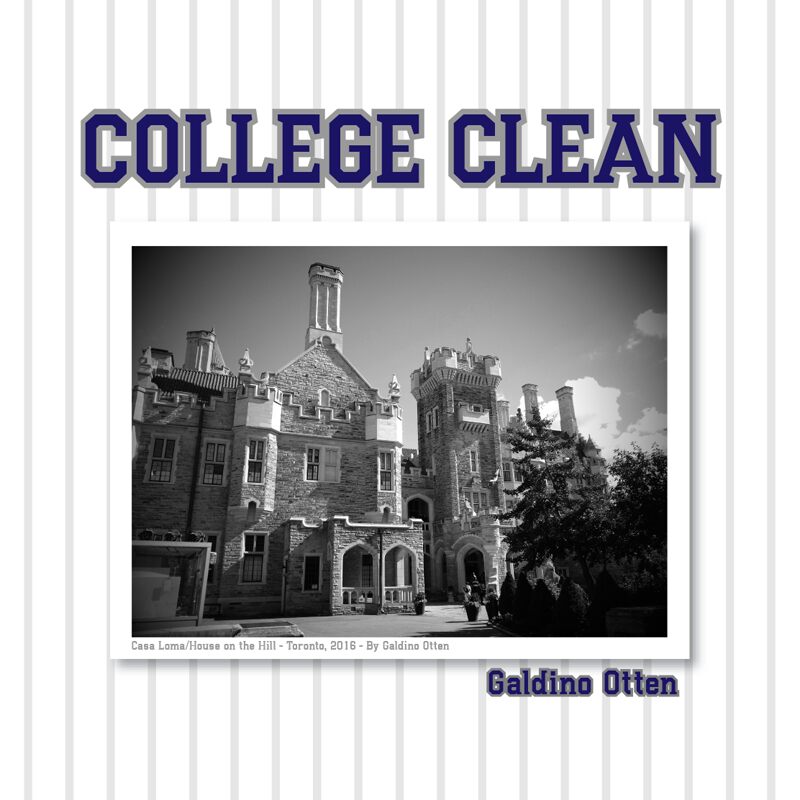
College Clean
College Clean, a distinct creation by Galdino Otten Fonts, embodies the essence of old school charm with a modern twist. This display font showcases semi-condensed lettering that provides a balance between space-saving utility and legible clarity. Its bold strokes and sharp serifs convey a sense of authority and tradition, perfect for evoking nostalgia while maintaining freshness in design.
The visual appeal of College Clean lies in its clean lines and uniformity, making it an ideal choice for impactful headlines and eye-catching logos. The aesthetic harkens back to the classic collegiate typography that you might find on vintage varsity jackets or university crests, yet its neat finish allows for versatility across digital platforms.
Given its distinctive style, College Clean is well-suited for projects aiming to stand out with characterful typography. Whether it's sports branding, educational institutions' marketing materials, themed event posters or even stylish apparel designs, this font offers creatives an avenue to infuse their work with personality without sacrificing readability.
In summary, College Clean is not just another throwback typeface; it’s a bridge between time-honored design elements and contemporary visual needs-a semi-condensed solution that speaks loudly in both print and digital realms.
The visual appeal of College Clean lies in its clean lines and uniformity, making it an ideal choice for impactful headlines and eye-catching logos. The aesthetic harkens back to the classic collegiate typography that you might find on vintage varsity jackets or university crests, yet its neat finish allows for versatility across digital platforms.
Given its distinctive style, College Clean is well-suited for projects aiming to stand out with characterful typography. Whether it's sports branding, educational institutions' marketing materials, themed event posters or even stylish apparel designs, this font offers creatives an avenue to infuse their work with personality without sacrificing readability.
In summary, College Clean is not just another throwback typeface; it’s a bridge between time-honored design elements and contemporary visual needs-a semi-condensed solution that speaks loudly in both print and digital realms.